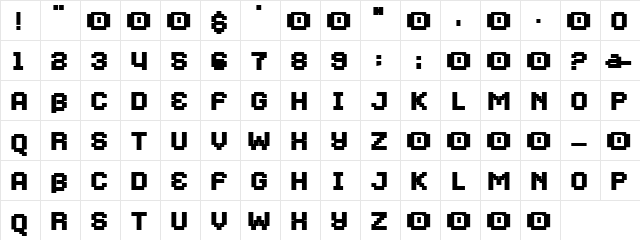
Mobile Regular
Design Context for Mobile Typeface
Mobile takes a measured approach to typography — its balanced proportions and neutral character make it a reliable workhorse for both digital and print work.